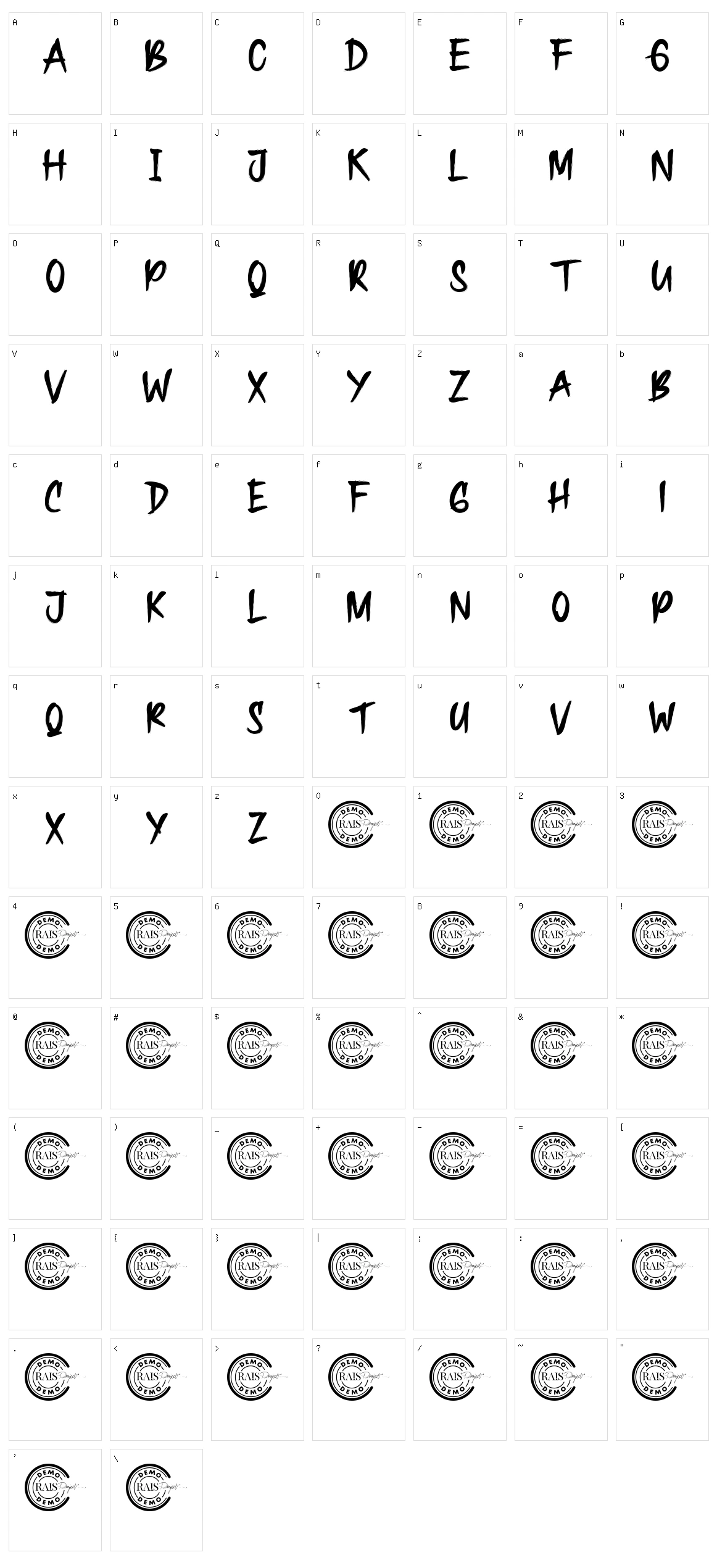
The free font Downhill Rush is carefully designed by RaisProject, showcasing a thoughtful balance of creativity and usability and falls under the Script font style. When you download the ZIP file, it contains only 83.62 KB of font files, making it lightweight and quick to download. Please review the license details below to understand permitted usage and distribution rights. If license information is not available, we recommend using this font for personal projects only or contacting the author directly for commercial usage permissions.